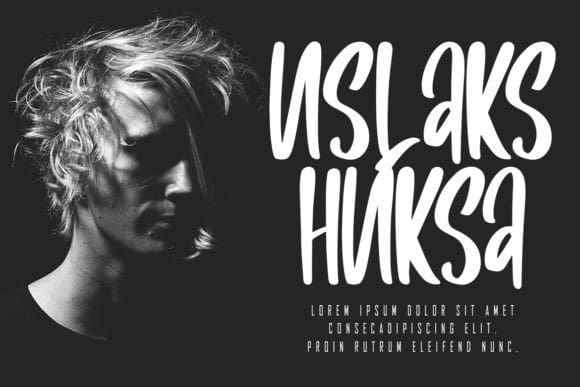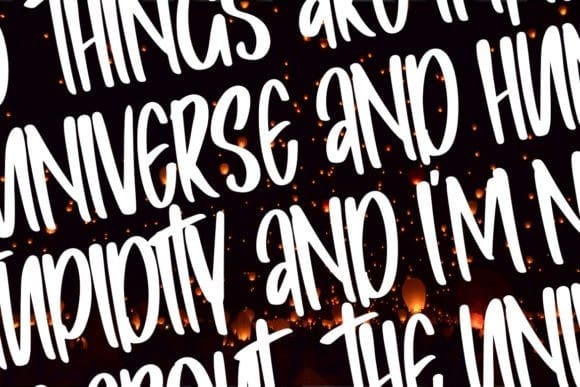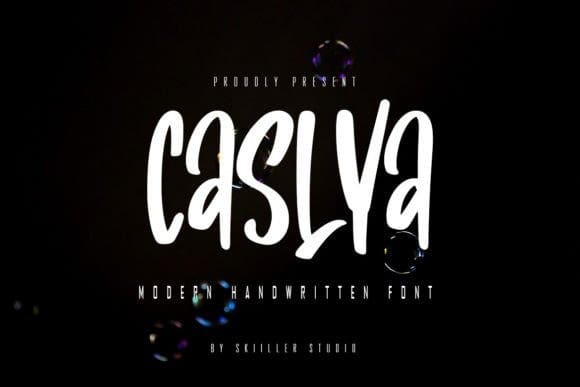
Caslya Font
Caslya Font: Elevate your designs with the appealing and modern Caslya handwritten font. Perfect for branding, social media graphics, and eye-catching headlines, this font adds a touch of sophistication to any project.